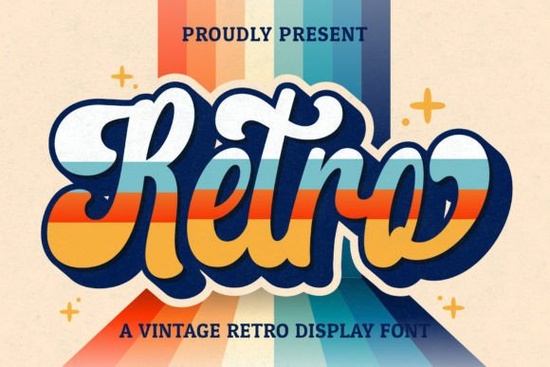
If you've been searching for a typeface that brings a warm, nostalgic feel to your creative projects, the Retro Script font is worth a closer look. It's a vintage-style handwritten font designed to give your work that handcrafted, mid-century personality without spending hours on custom lettering. Whether you're working on wedding invitations, logo concepts, or social media graphics, this font fits right in.
What Makes Retro Script a Good Fit for Design Work?
Retro Script has a flowing, connected letterform style that reads as both classic and approachable. Unlike overly ornate calligraphy fonts, it stays legible at a range of sizes. That balance is what makes it useful across different project types:
- Logos and branding especially for boutique shops, cafés, or lifestyle brands with a vintage aesthetic
- Wedding stationery save-the-dates, menus, place cards, and thank-you notes
- Social media posts quote graphics, sale announcements, and story overlays
- Greeting cards and invitations birthday, holiday, or event designs
- Print-on-demand products mugs, tote bags, t-shirts, and posters
The font is also PUA encoded, which means every glyph, swash, and alternate character is accessible even in basic design software that doesn't always support OpenType features. This is a practical advantage if you use tools like Canva, Cricut Design Space, or basic desktop editors.
Who Is This Font Best Suited For?
Retro Script works well for anyone who wants a handmade, vintage look without the learning curve of advanced typography. Here's how different creators tend to use it:
Small business owners often reach for fonts like this when building a brand identity that feels personal and trustworthy. A retro script can make a bakery logo or a handmade soap label feel instantly more authentic.
Crafters and hobbyists appreciate that PUA encoding lets them use swashes and alternates in Cricut and Silhouette software without extra steps. That's a real time-saver when cutting vinyl decals or layered paper projects.
How Does It Compare to Other Display and Script Fonts?
There's no shortage of script fonts available, so how does Retro Script hold up? It sits in a useful middle ground more structured than loose brush lettering, but less formal than traditional cursive calligraphy. Here are a few comparisons that might help you decide:
Where Can You Use Fonts with Swashes and Alternates?
This is a question that comes up a lot, especially from crafters. The short answer: any software that supports copy-paste of Unicode characters. Because Retro Script is PUA encoded, you can copy special characters directly from a character map and paste them into:
- Canva paste alternates into text boxes for quick social media designs
- Cricut Design Space use swashes on vinyl and paper cut projects
- Adobe Illustrator and Photoshop full OpenType panel access for professional workflows
- Silhouette Studio copy special glyphs for craft cutting projects
- Microsoft Word or PowerPoint basic but functional for simple layouts
This flexibility matters because not everyone works in high-end design software. A PUA-encoded font removes that barrier.
Tips for Pairing Retro Script with Other Fonts
A script font rarely works alone in a full design. Here are a few pairing ideas that designers commonly use:
- Retro Script + a clean sans-serif for modern-vintage branding (think wedding menus or product labels)
- Retro Script + a slab serif or block font for poster designs, t-shirt graphics, and bold headers. The College Block typeface is a solid option for this kind of contrast.
- Retro Script + a decorative display font for layered, eye-catching compositions used in event signage or social posts
The general rule is to let the script font be the focal point and use your secondary font to support it not compete with it.